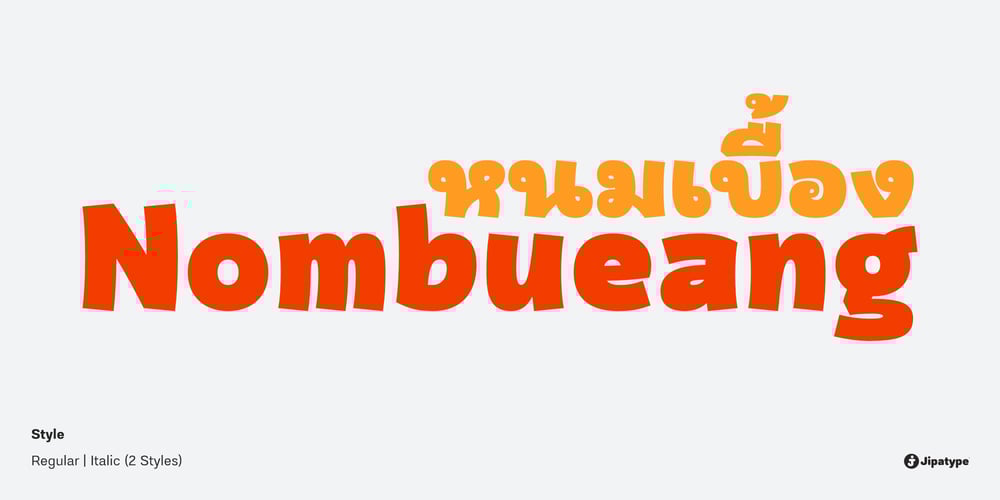
Nombueang
Nombueang font
Nombueang Font Family was designed by Anupap Jaichumnan and published by Jipatype. Nombueang contains 2 styles and family package options. Nombueang is an informal headline typeface with a bold appearance and loop-headed Thai letters, giving it a fun, friendly, and warm feeling. It is suitable for use in various media and is especially effective in emphasizing special importance, such as in posters, packaging, and more.